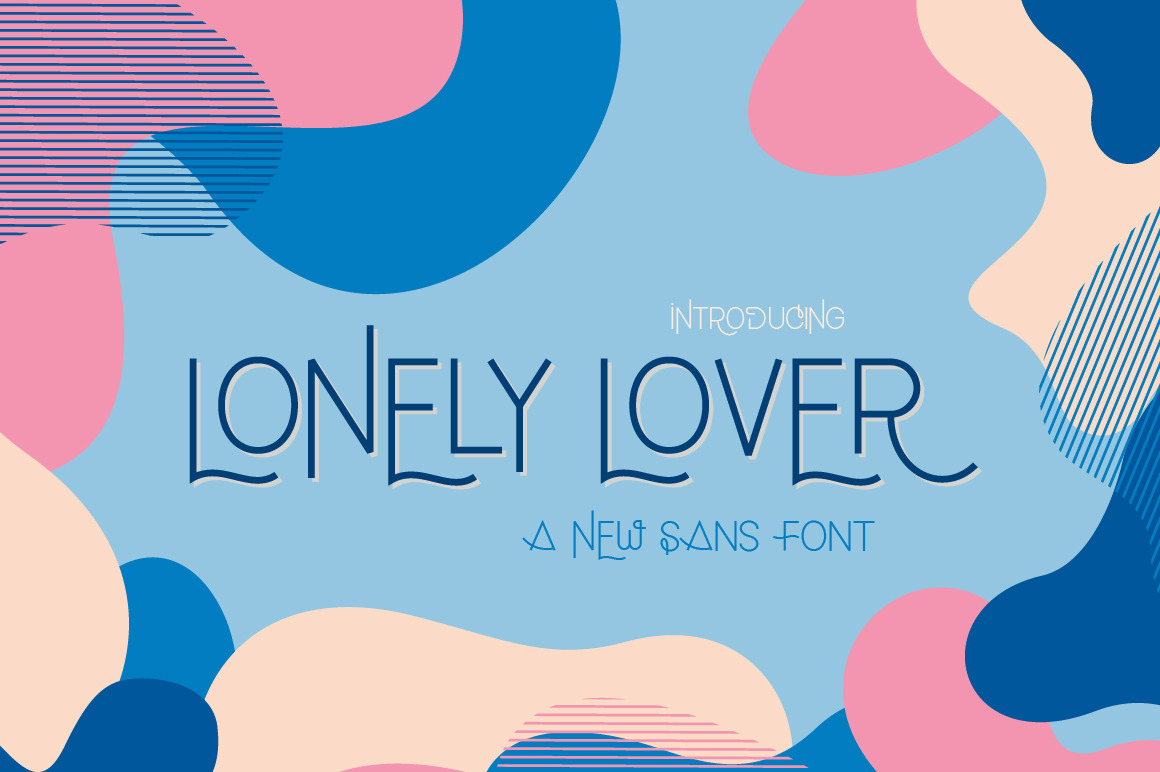
Lonely Lover Font
Lonely Lover is a brand new, playful font from Salt and Pepper Designs. Featuring a swirly, unique uppercase and a modern sans lowercase. Mixing and matching the two can help you achieve fancy words time and time again! Enjoy!